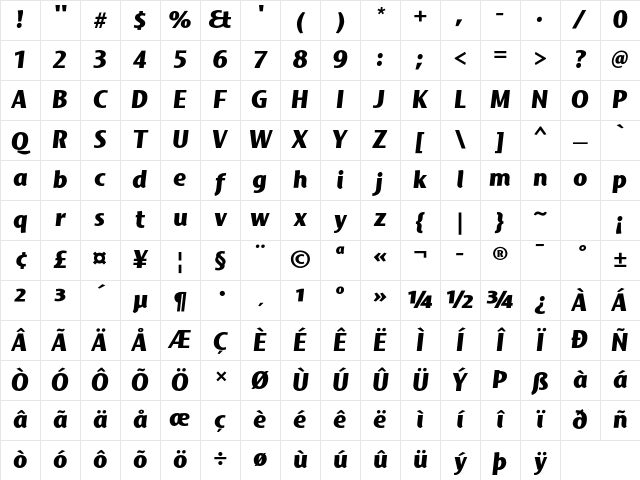
Mosquito Std Black Italic
Design Context for Mosquito Std
Mosquito Std is a composed and adaptable typeface that performs quietly and consistently across a wide range of design contexts. The slanted form adds forward momentum and visual energy.
Pro Tip: Use Mosquito Std for emphasis, pull quotes, and subheadings where its slanted energy can add rhythm to the layout.